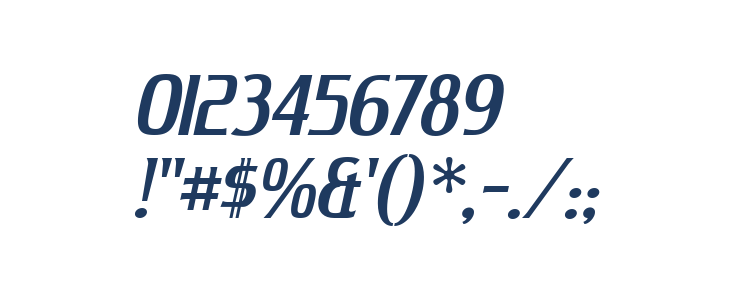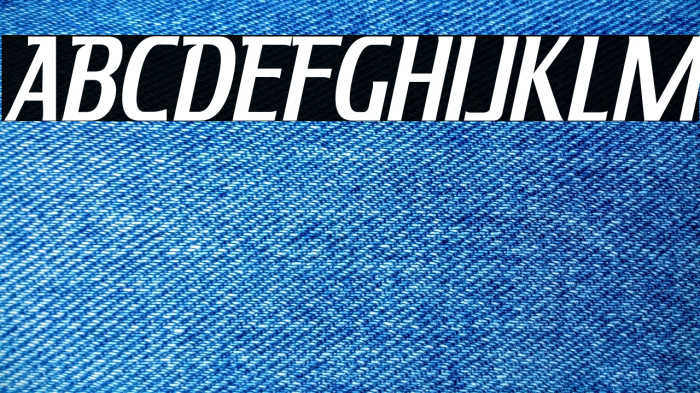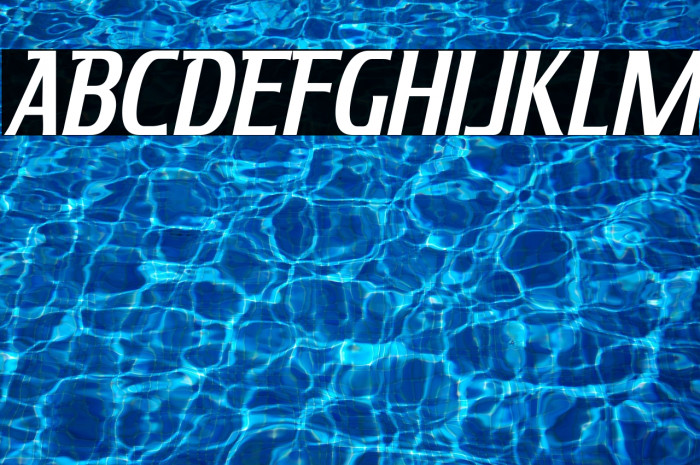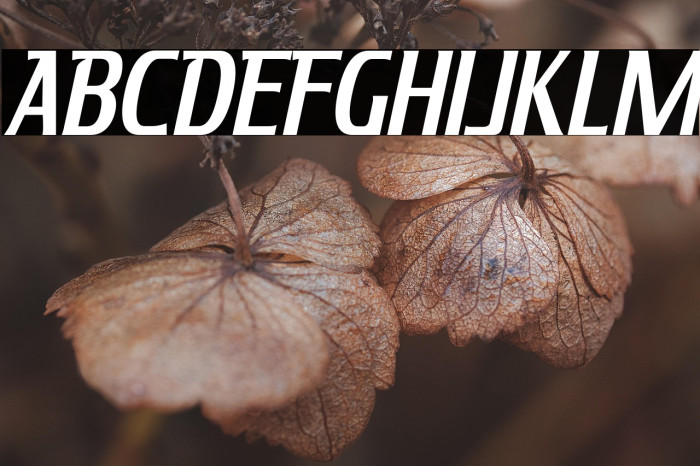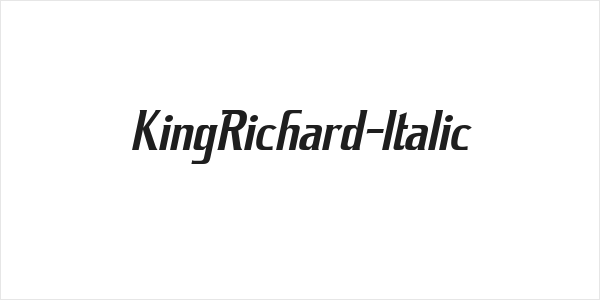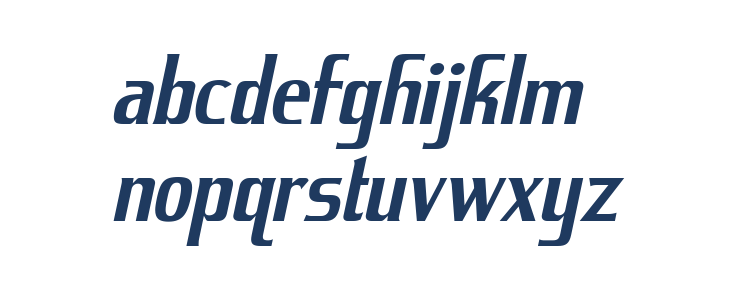
KingRichard-Italic Font
KingRichard-Italic Description
This font exhibits a sleek and modern italic style, characterized by its slanted and elongated letterforms. The strokes are clean and slightly condensed, giving it a dynamic and energetic appearance. The uppercase and lowercase letters maintain a consistent style, with smooth curves and sharp angles that enhance readability. The numerals are distinct and align well with the overall design, while the special characters complement the font's aesthetic. This typeface is well-suited for projects that require a contemporary and stylish look.
| Proposed Projects | Ideal for branding, advertising, and editorial design projects that seek a modern and stylish appeal. |